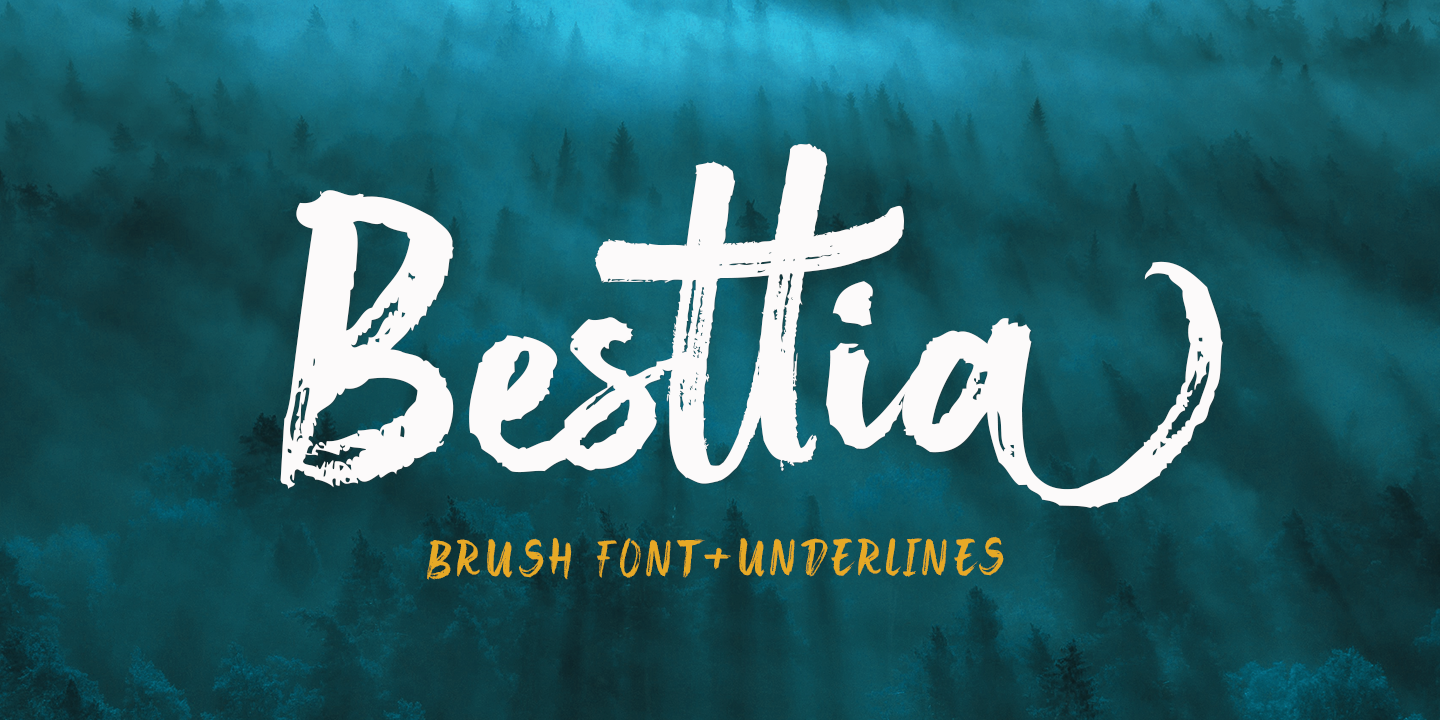
Besttia Brush Font is ideal for artistic poster designs, creative social media graphics, handmade product branding, artisan workshop logos, craft store signage, artistic portfolio layouts, creative agency communications, paint store branding, art supply packaging, gallery exhibition titles, creative workshop flyers, and artistic merchandise design. This expressive typeface excels in applications requiring artistic flair and handcrafted authenticity, making it perfect for creative businesses, art studios, craft stores, and brands targeting artistic communities.
What makes Besttia Brush Font exciting is its authentic brush-painted character that captures the spontaneous energy of hand-lettered artwork. The font features dynamic letterforms with natural brush strokes and organic variations that create genuine artistic authenticity. Its expressive character shapes and fluid transitions between letters evoke the tactile quality of traditional brush painting, while maintaining excellent readability across various applications. The font's distinctive personality brings immediate artistic credibility to any project, making it perfect for brands seeking to establish creative authenticity and handmade appeal.
The Besttia Brush Font family typically includes multiple variations such as Regular, Bold, Light, and Condensed versions, along with complementary outline and shadow styles. Many collections also feature alternative character sets, artistic ligatures, and decorative elements that enhance the font's handcrafted character. Some comprehensive packages include matching brush textures, artistic borders, and paint-inspired design elements that provide complete creative flexibility for artistic projects.
Besttia Brush Font Free Download represents the perfect fusion of artistic expression and typographic functionality. This remarkable typeface brings instant creativity and handmade charm to any design project, making it particularly valuable for creative professionals, art-focused businesses, and brands seeking to differentiate themselves through authentic artistic character. The font's expressive nature ensures memorable visual communications that resonate with creative audiences.
Designers love Besttia Brush Font for its ability to transform ordinary text into compelling artistic statements. The font's technical excellence ensures smooth performance across digital and print applications, while its artistic appeal adds instant creative authenticity to any project. The comprehensive character set includes standard alphabets, numbers, punctuation marks, and special symbols, making it suitable for diverse creative applications and multilingual projects.
This exceptional typeface successfully captures the essence of traditional brush painting while offering modern digital functionality, providing designers with an authentic tool for creating memorable and impactful artistic communications that connect with audiences seeking genuine creative experiences and handmade authenticity.